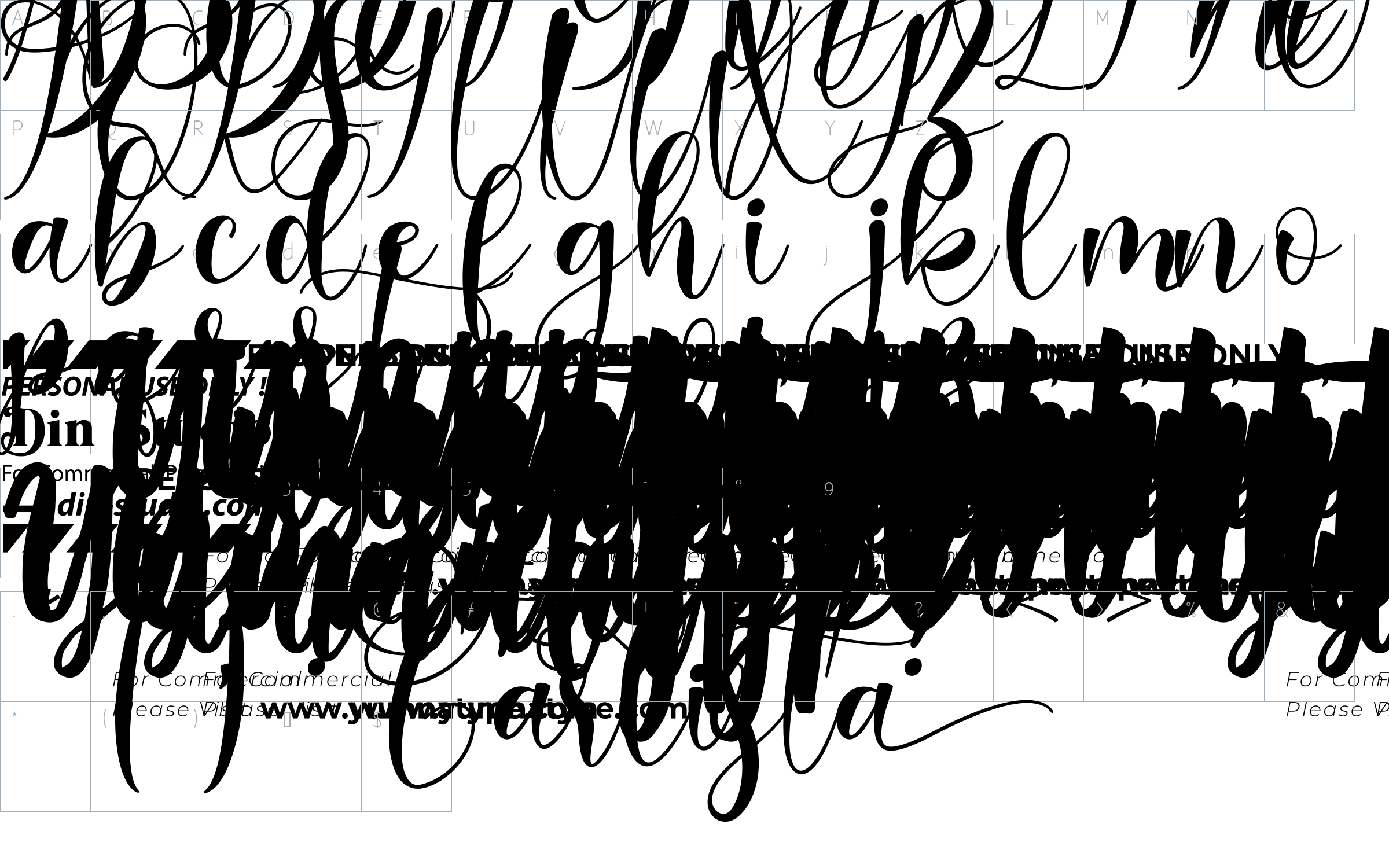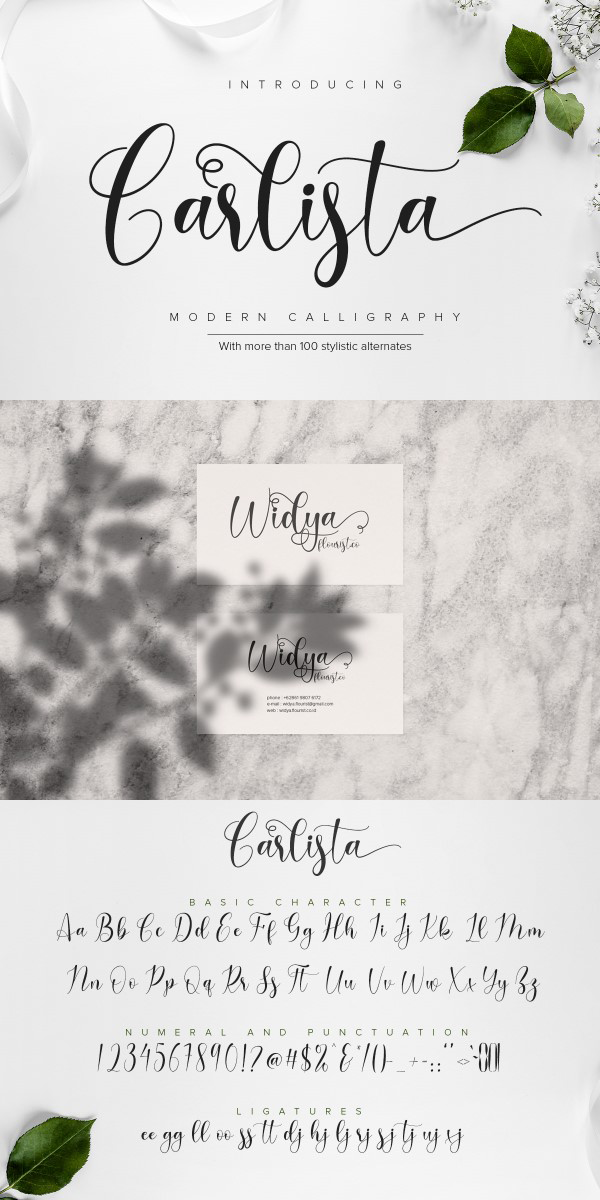
Carlista Font
About Carlista
Carlista is a beautiful and modern script.
It brings a beautiful and modern typeface that best used for weddings, branding, logotype, and quotes.:
Features :
-9 Ligatures
-112 Beautiful Alternates + Swashes
-Beginning Swash and Ending Swashes (a-z)